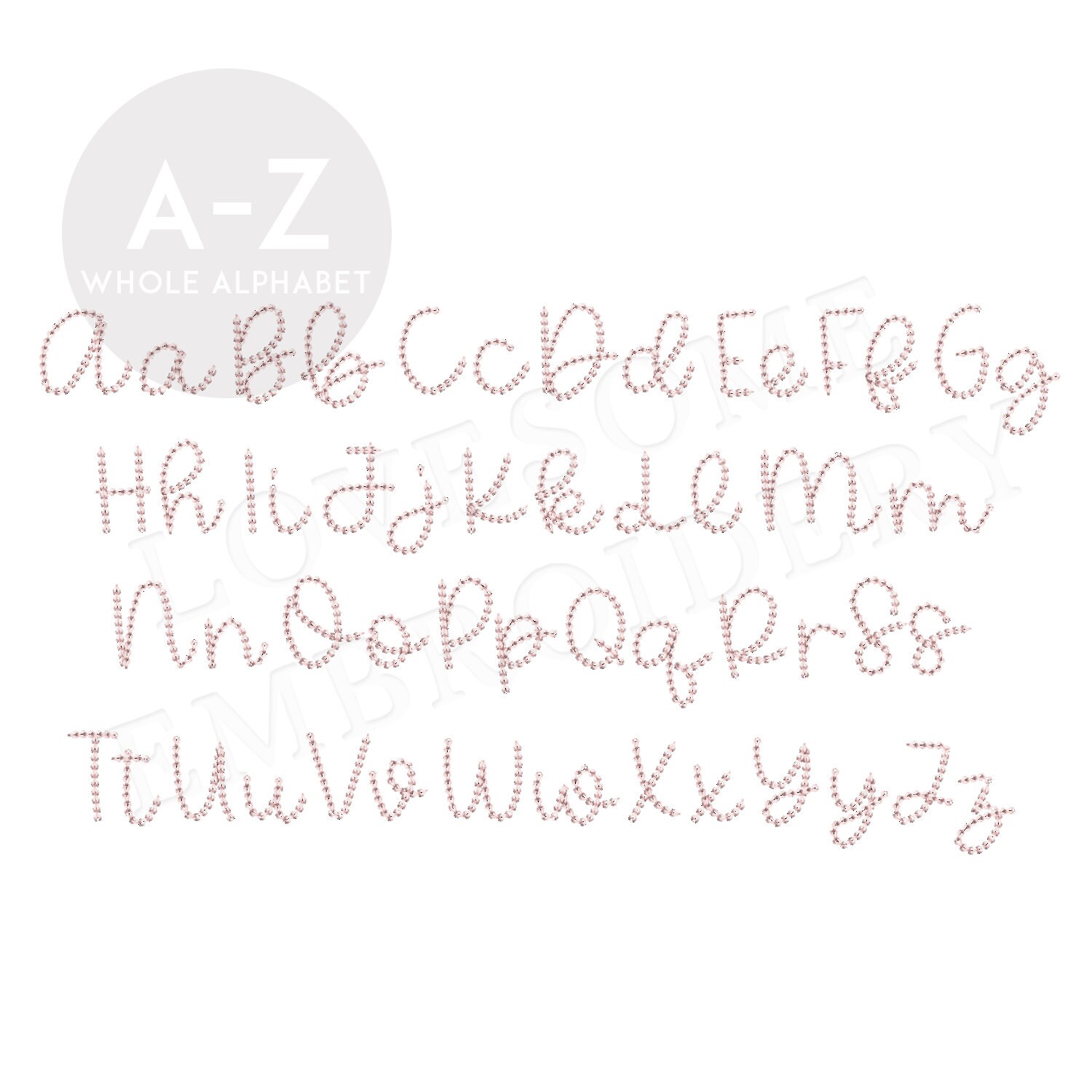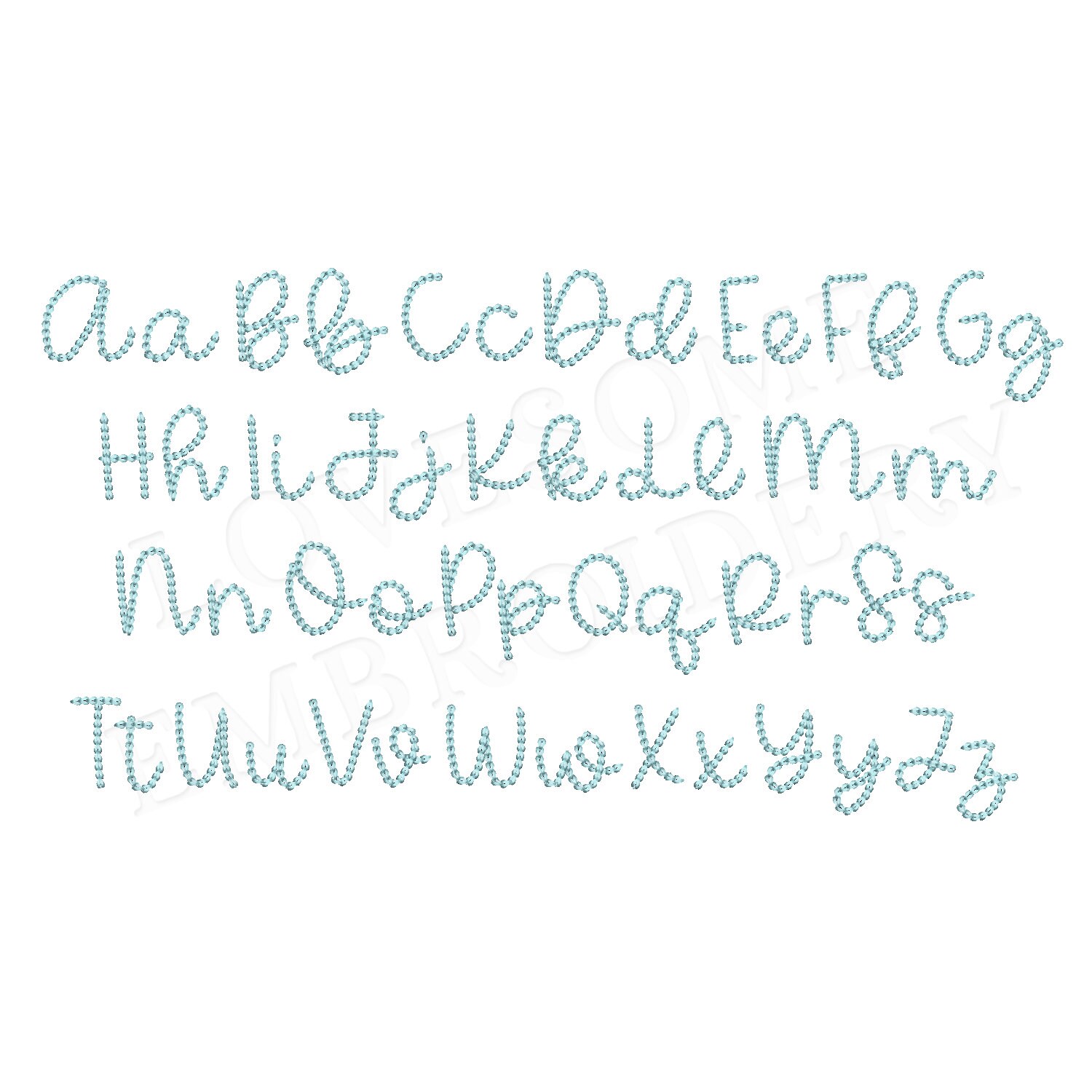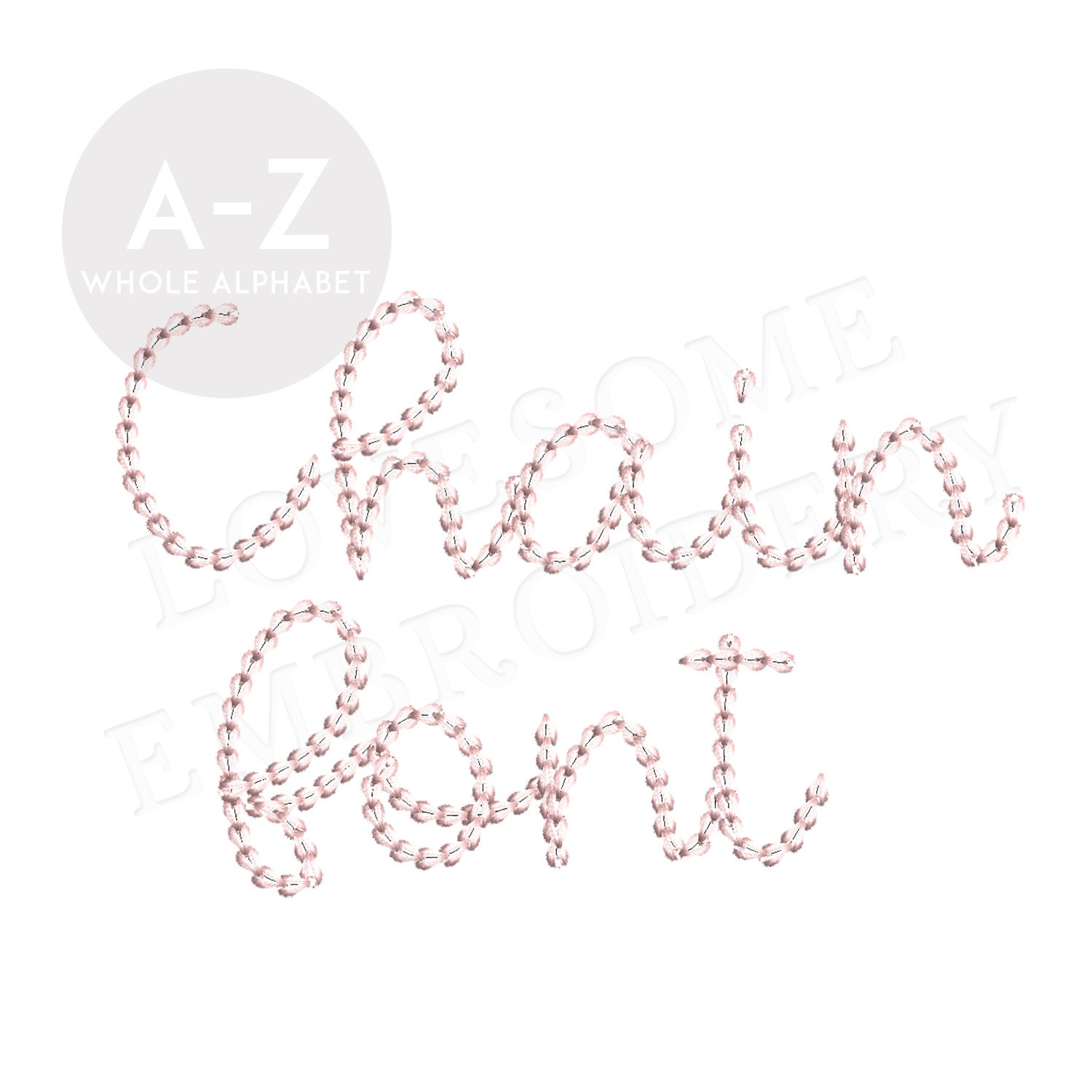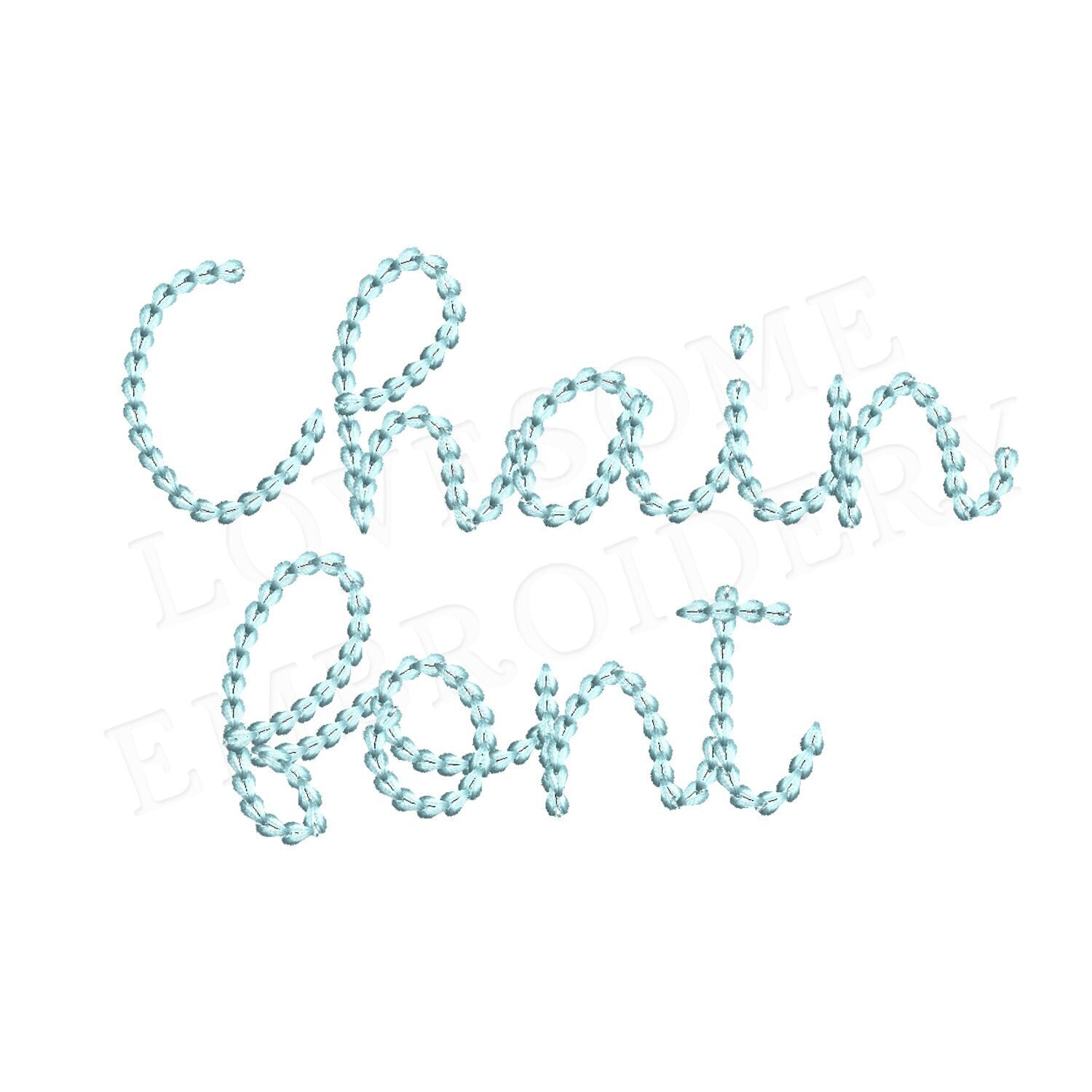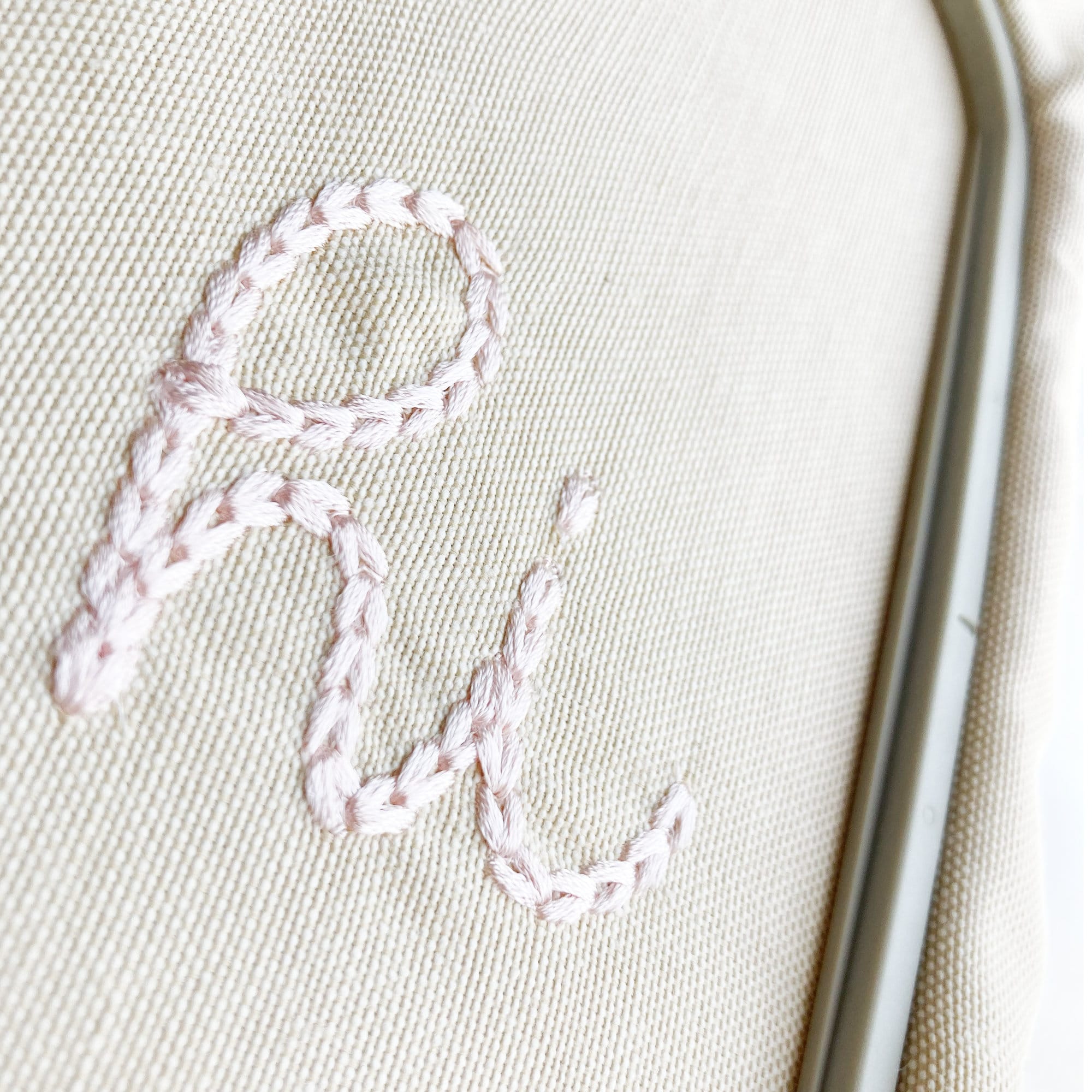
Chain Script Font A-Z 1.5inch Cursive Chain Stitch Machine Embroidery Font Digital Download | Lovesome Embroidery
This listing features a machine embroidery font set which includes rope stitch embroidery files of 26 uppercase and 26 lowercase letters in 1.5inch size. (For the whole set, pls see the listing images.)